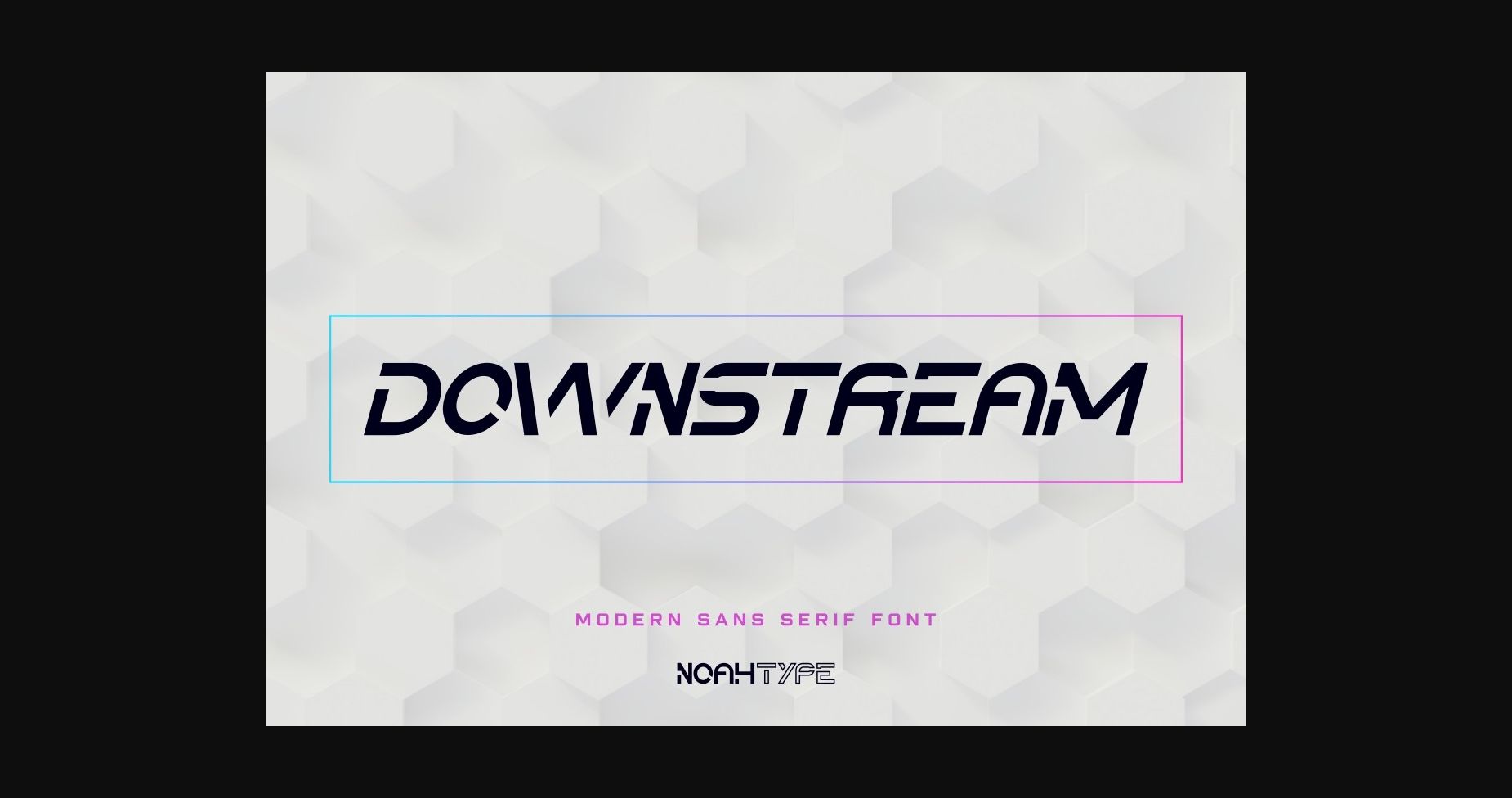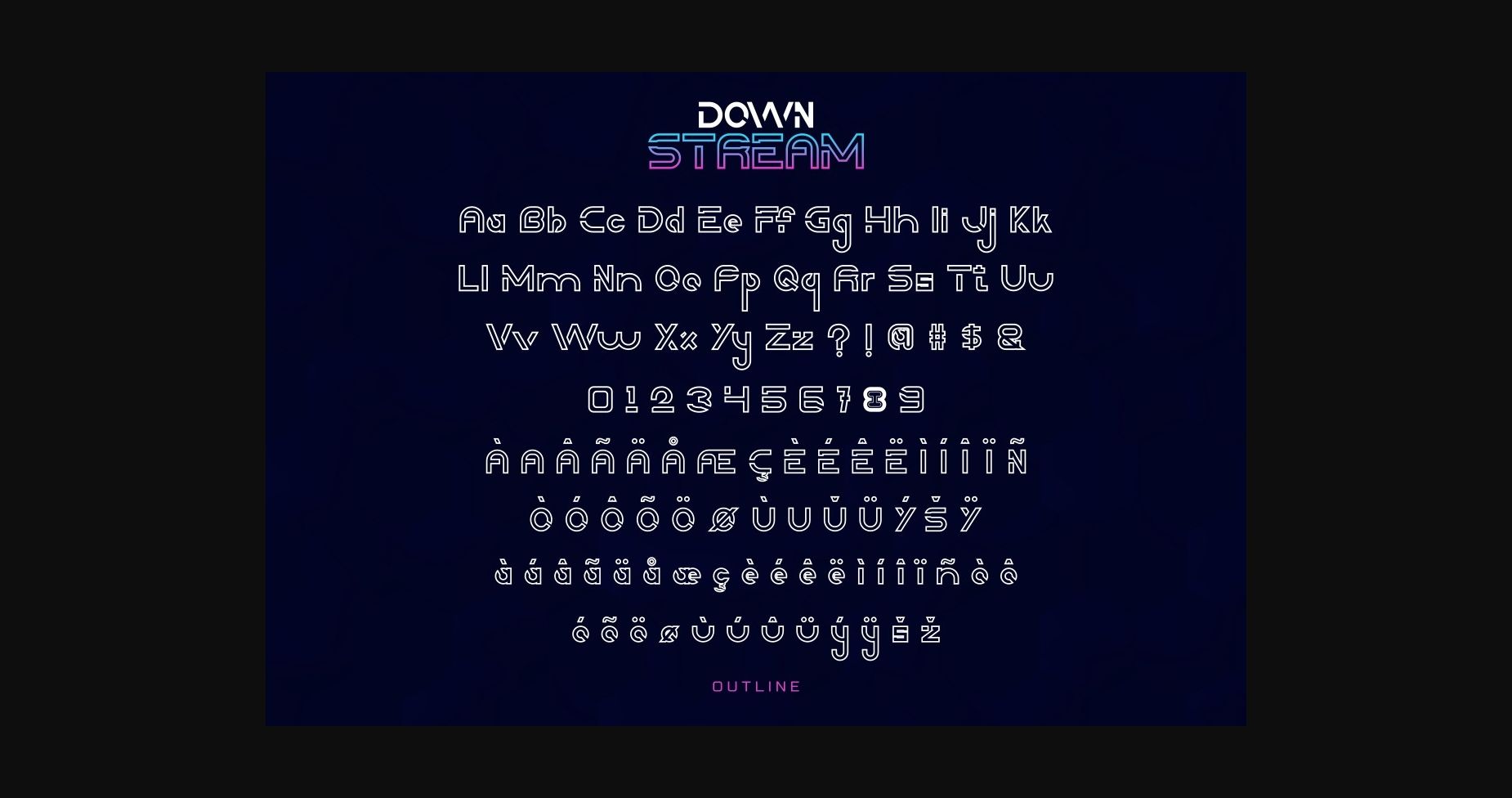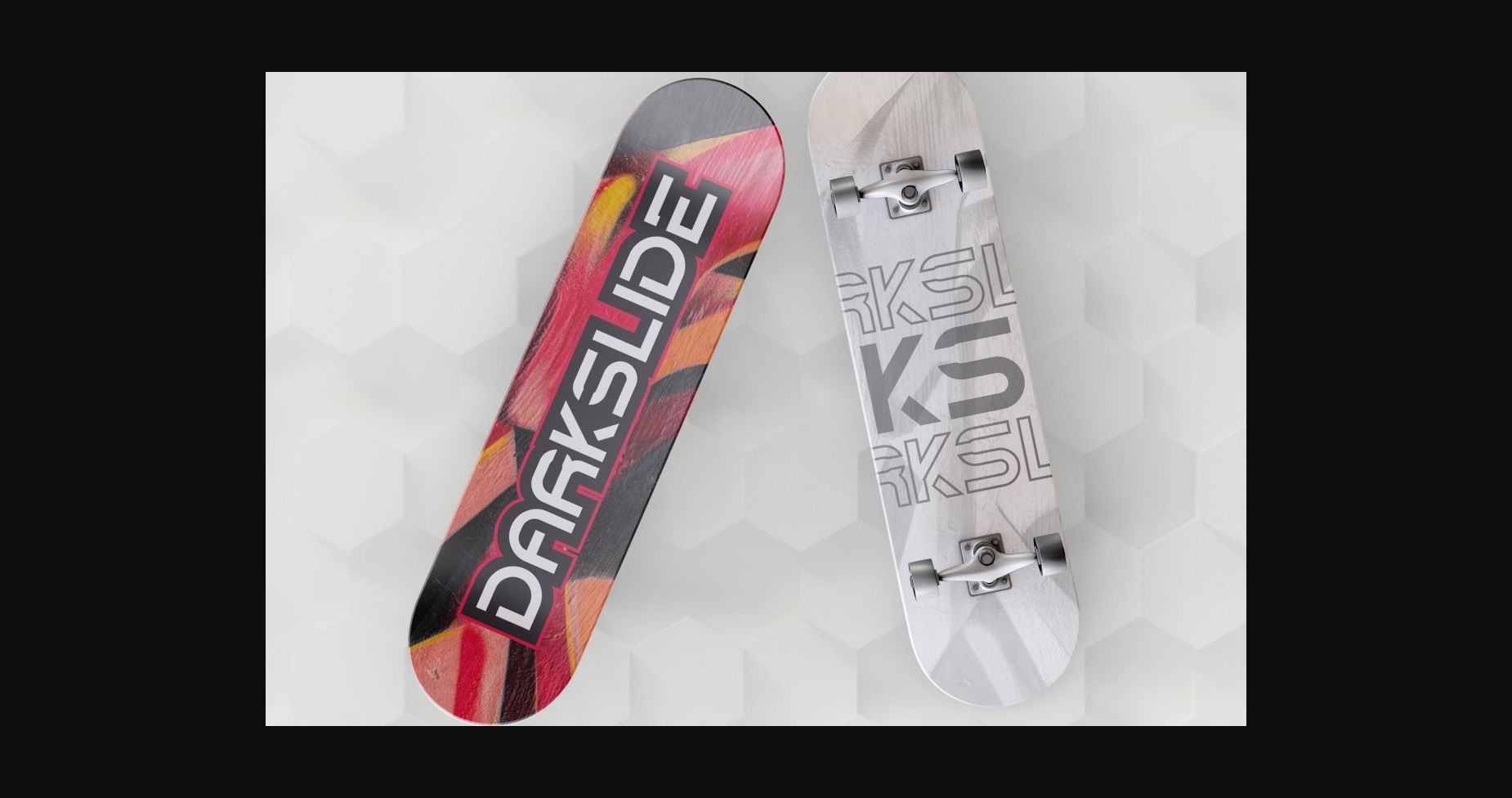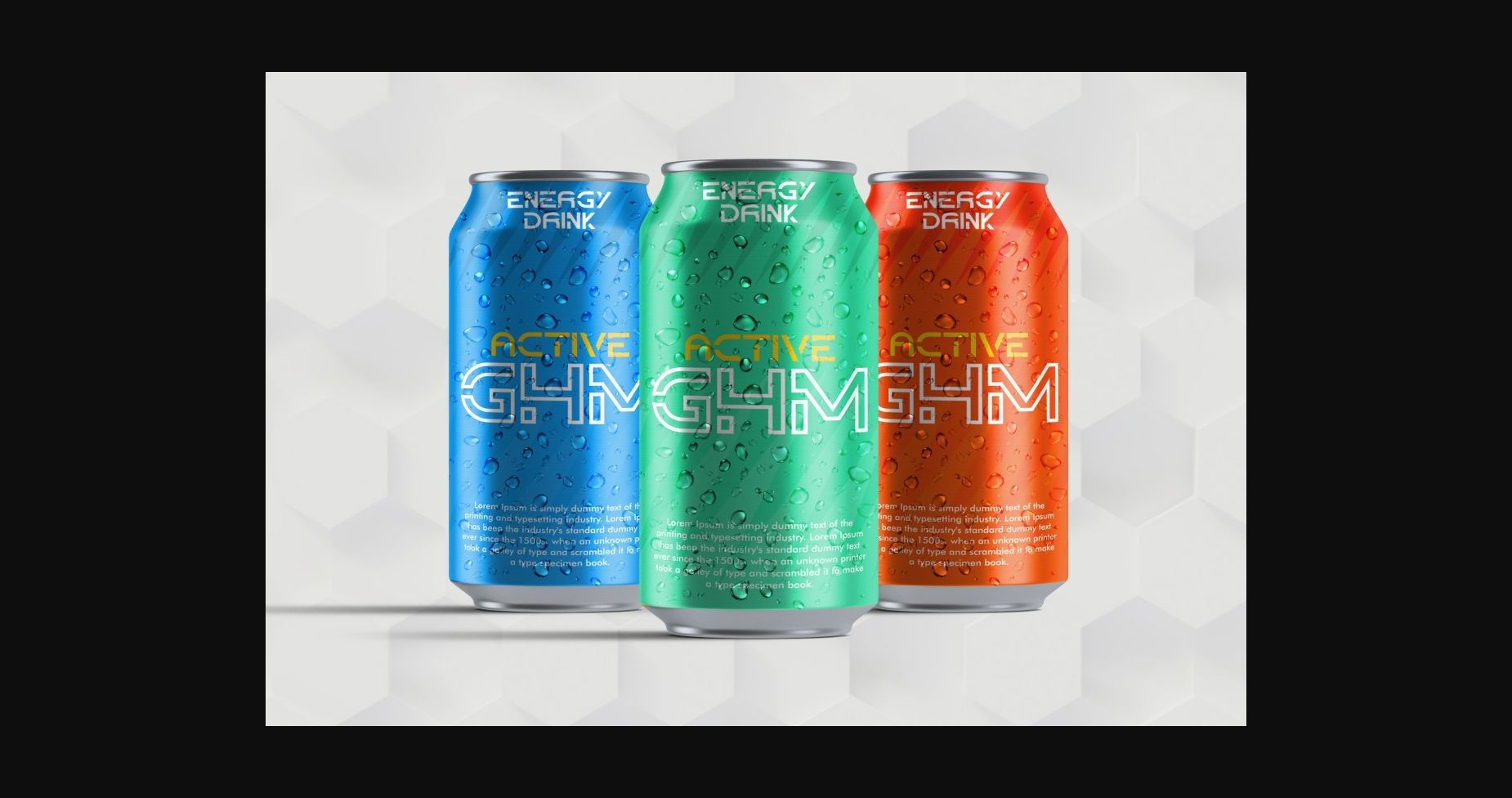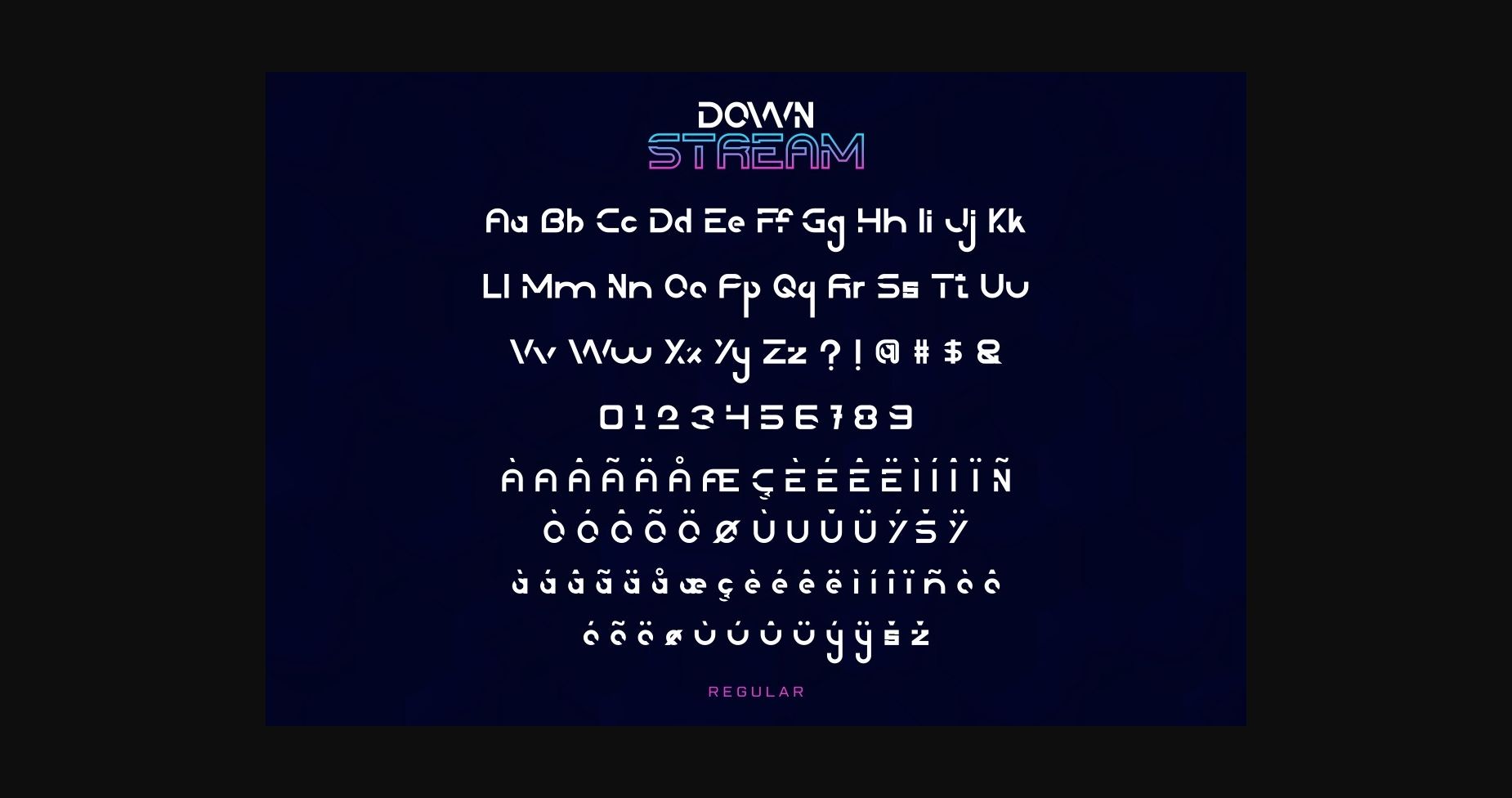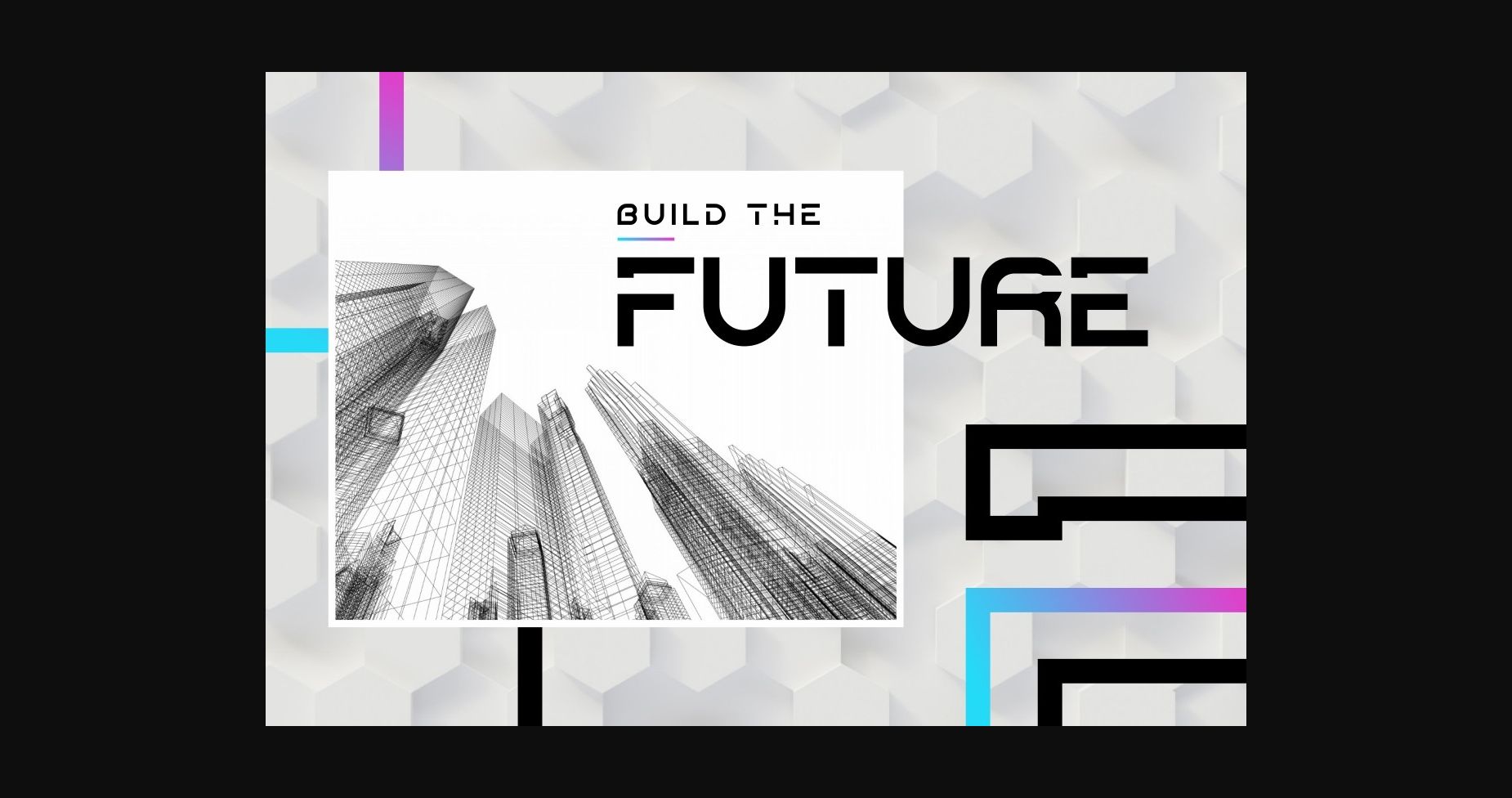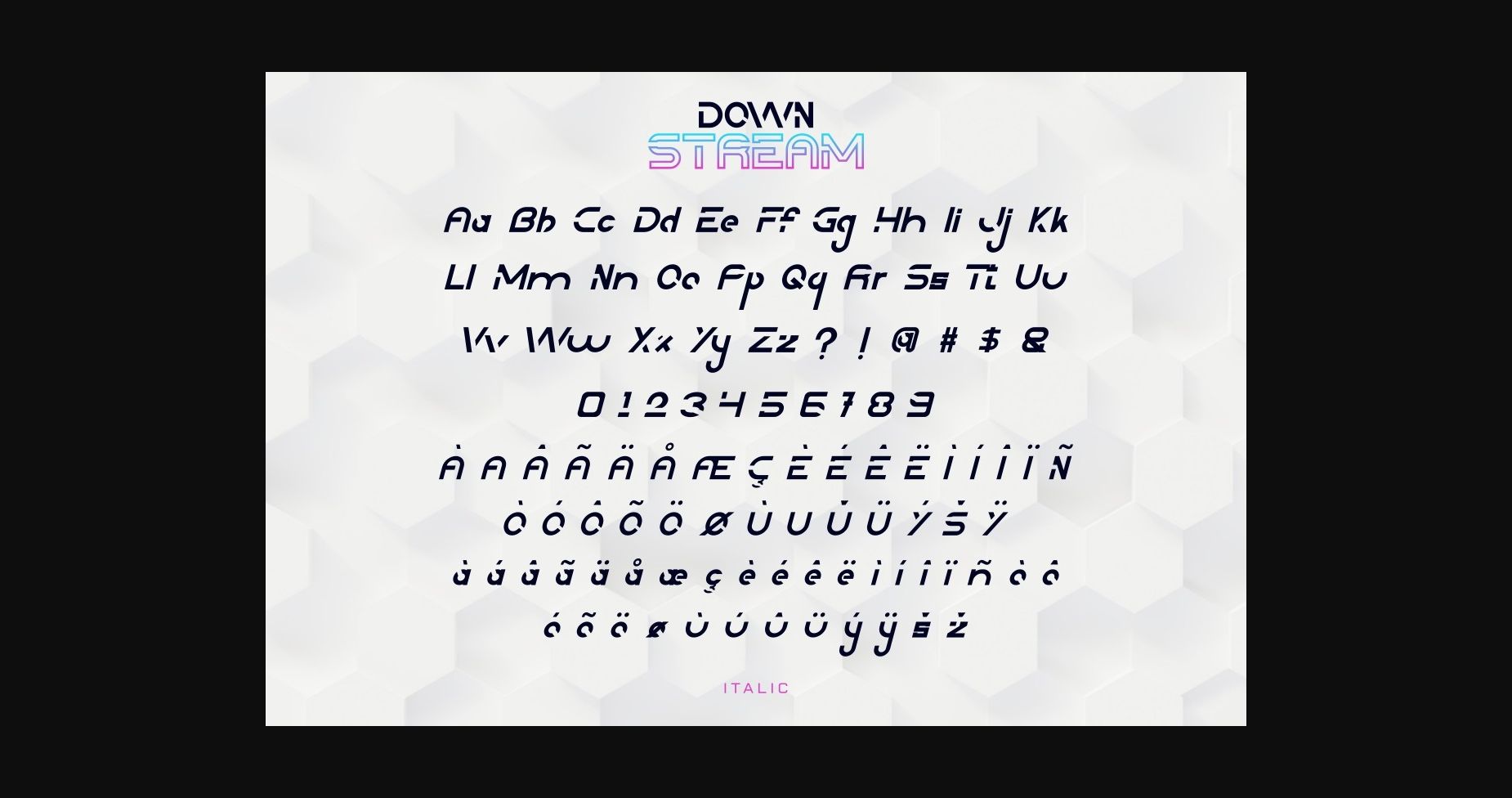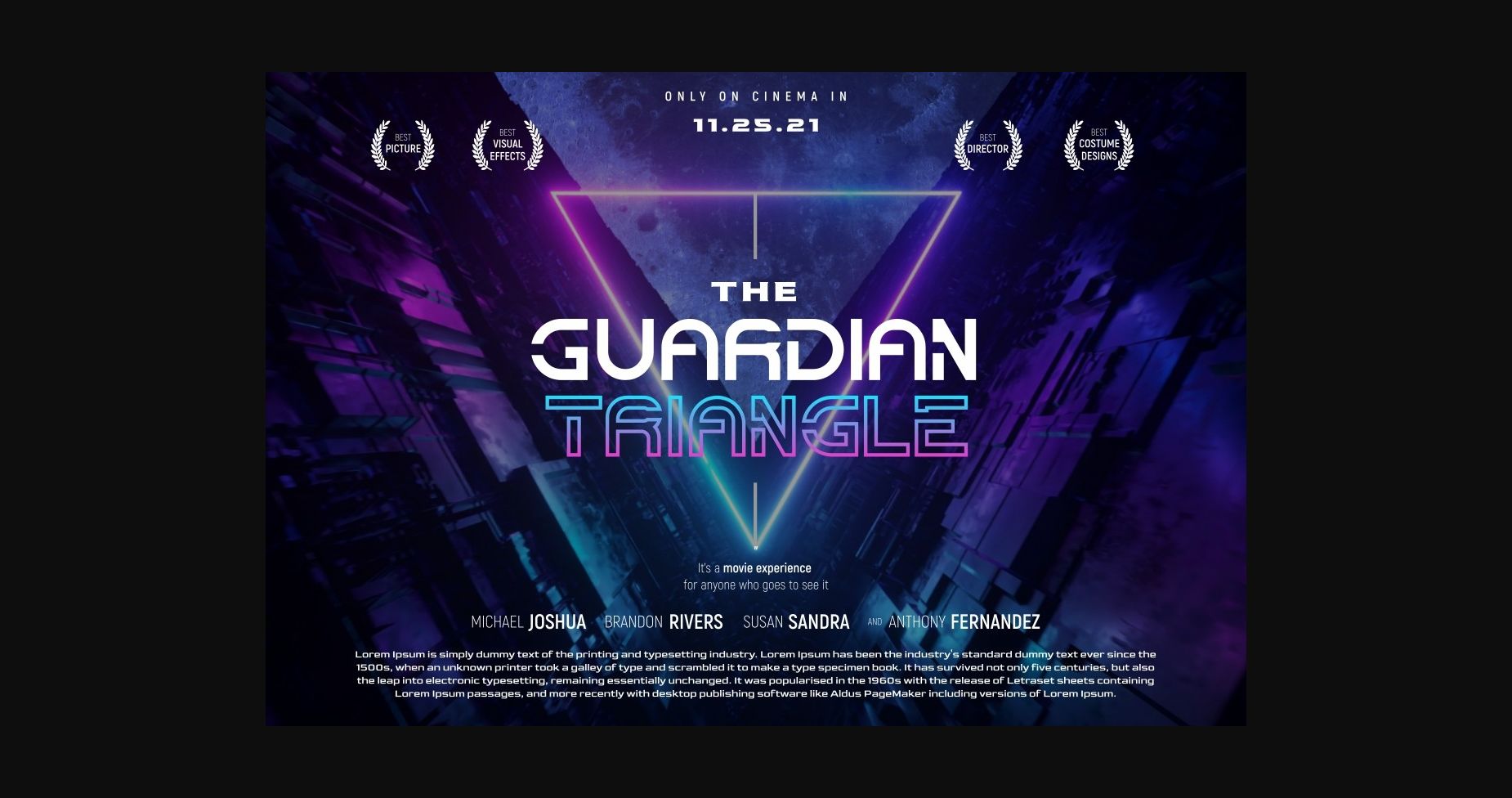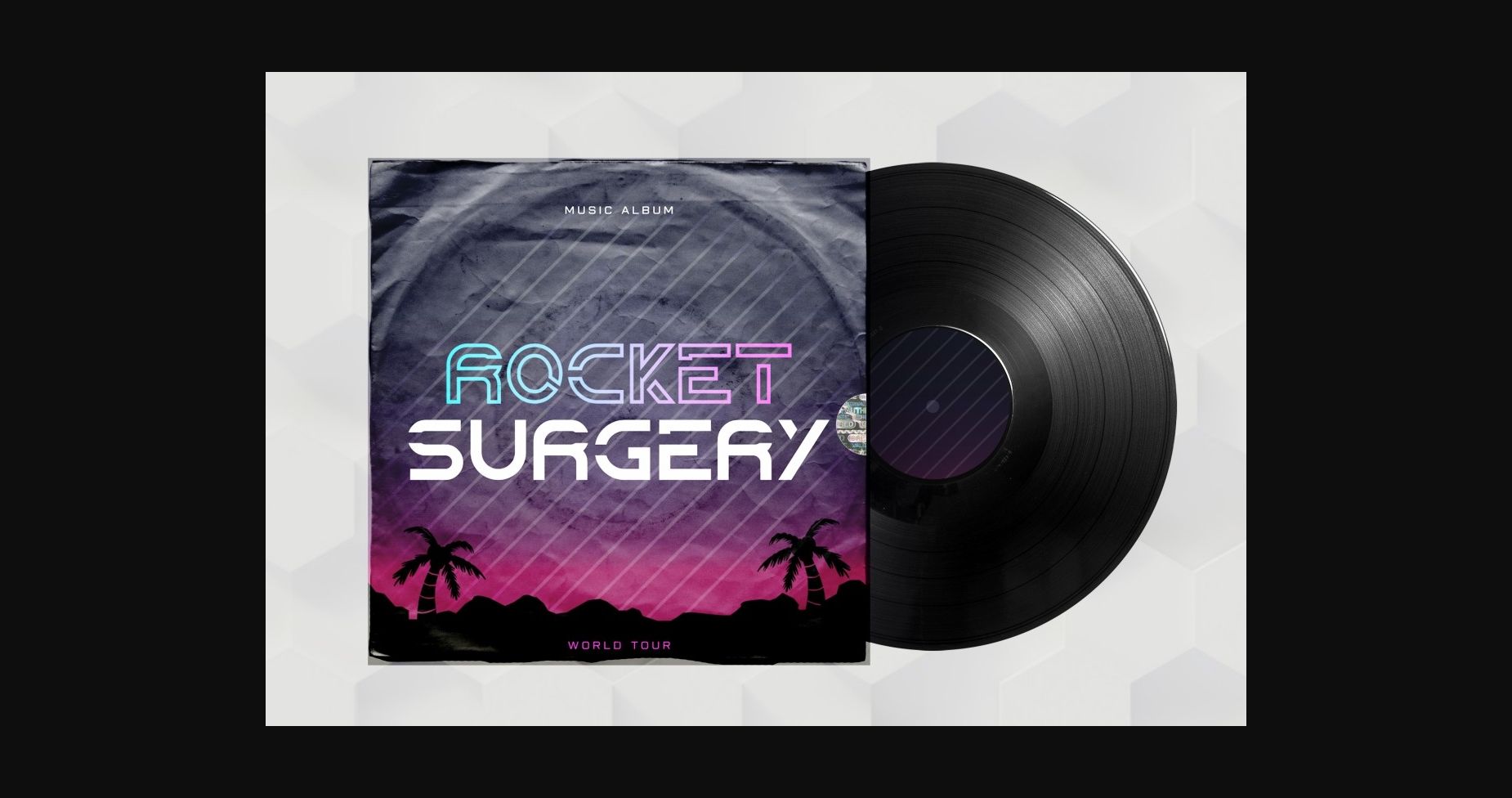
Downstream Font
About Downstream Font
Downstream is a modern sans serif font with an awesome style. The font was inspired by speed, computer glyphs, techno, and hip posters. It has a unique style that will bring a special effect to your designs.
It works for games, technology, events, spaceship, headlines, logos, posters, titles, product packaging, and more.